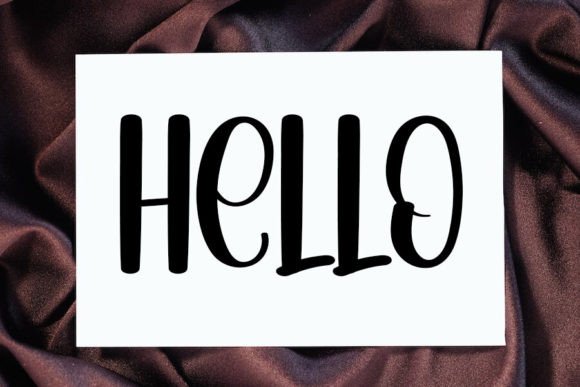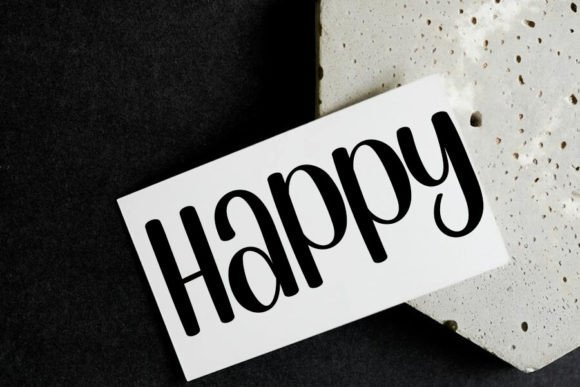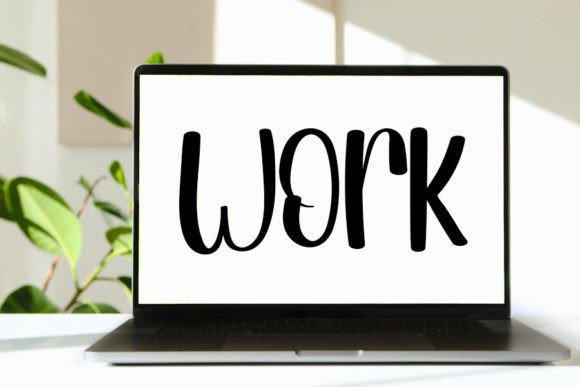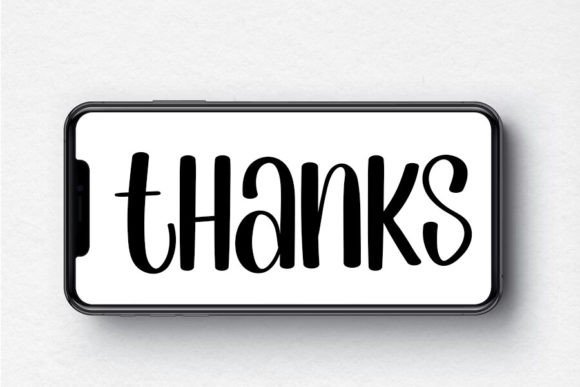
Introduction to Santa Happines Font
Santa Happines is a unique and interesting handwritten font.
A little bit quirky, this font looks incredibly adept in a wide variety of contexts .
Key Features of Santa Happines Font